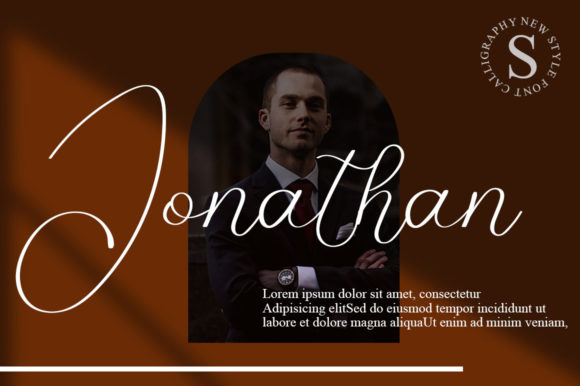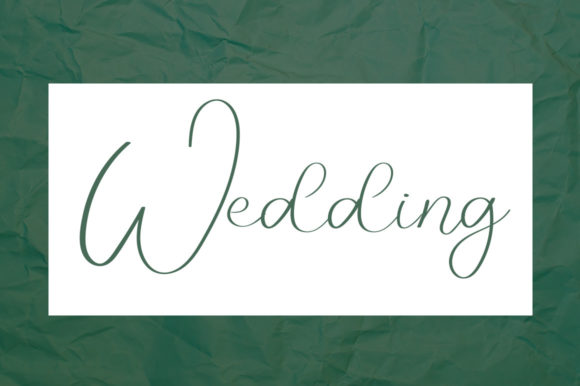
Family Caligraphy Font
db-ku.com - Script & Handwritten -- Family Caligraphy is a delicate, elegant and flowing handwritten font. It has beautiful and well balanced characters and as a result, it matches a wide pool of designs. Add it to your most creative ideas and notice how it makes them come alive!